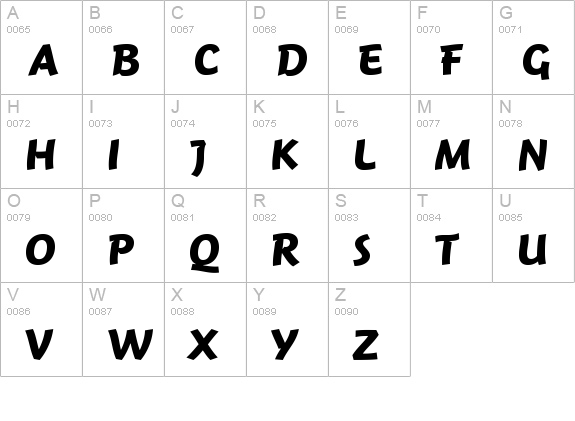
JambonoTF-Bold Font Details
JambonoTF-Bold is a strong, high-contrast variant in the JambonoTF typeface family \xE2\x80\x94 well suited to headlines, attention-grabbing titles, and strong calls-to-action.
JambonoTF-Bold is a captivating and versatile font that effortlessly combines modern aesthetics with a touch of elegance. This bold typeface exudes confidence and strength, making it the perfect choice for a wide range of design projects. With its clean lines and distinct letterforms, JambonoTF-Bold commands attention and adds a bold statement to any text. Whether you're designing a logo, poster, or website, this font will elevate your design and leave a lasting impression. What makes JambonoTF-Bold even more enticing is that it is free! Yes, you read that right - this exceptional font is freely available to download at FontsMarket.com. Embracing the concept of accessibility, JambonoTF-Bold allows designers, creatives, and enthusiasts alike to effortlessly enhance their projects without the burden of cost. Unleash your creativity and explore the possibilities that JambonoTF-Bold offers. Its versatility allows it to be used in various contexts, from branding and advertising to editorial and social media content. This font is a true game-changer that will elevate your designs to new heights. Download JambonoTF-Bold today from FontsMarket.com and experience the power of this remarkable font. Don't miss out on the opportunity to enhance your design projects with this stunning typeface that effortlessly combines modernity and sophistication. Let JambonoTF-Bold be the statement piece in your next design venture.